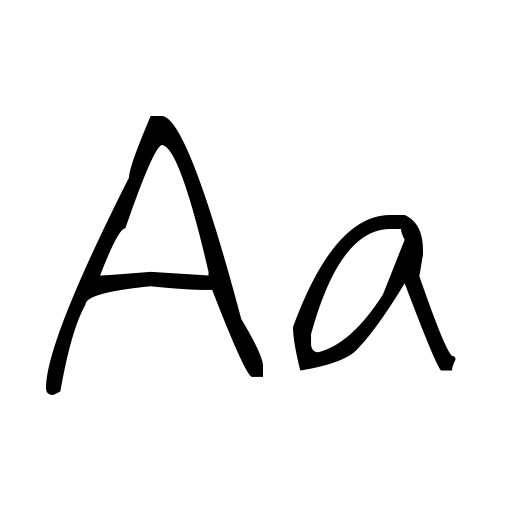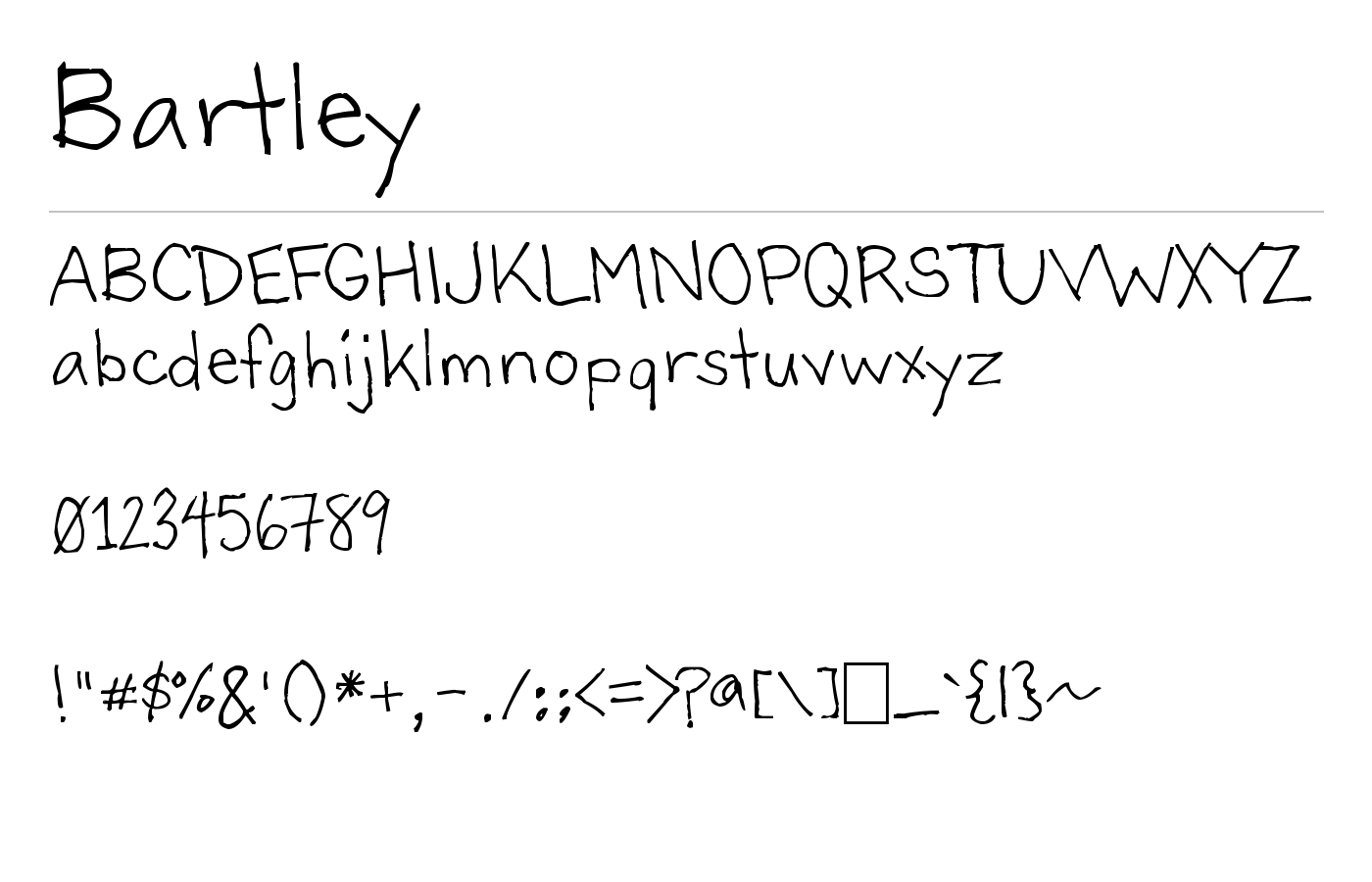
Bartley is a casual, hand-drawn sans serif font with a playful and informal personality. Its thin, uneven strokes and slightly irregular shapes give it a charming, handwritten feel that works well for creative projects, children’s designs, and any context where a friendly, approachable tone is desired. This font shines in headlines, invitations, and packaging where personality and uniqueness are key.
Bartley Font
About Bartley Font